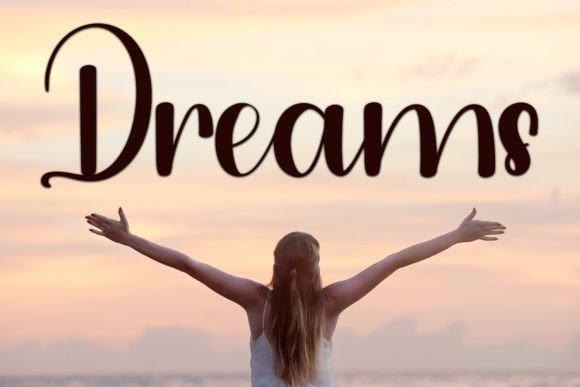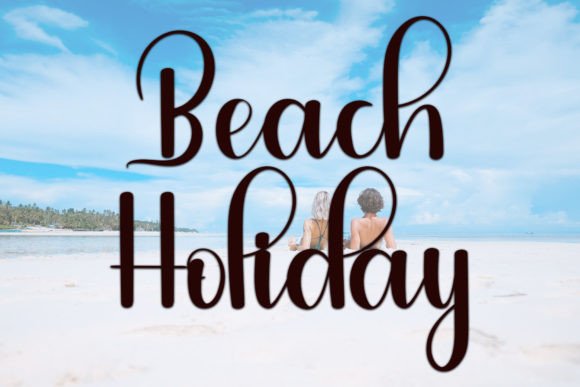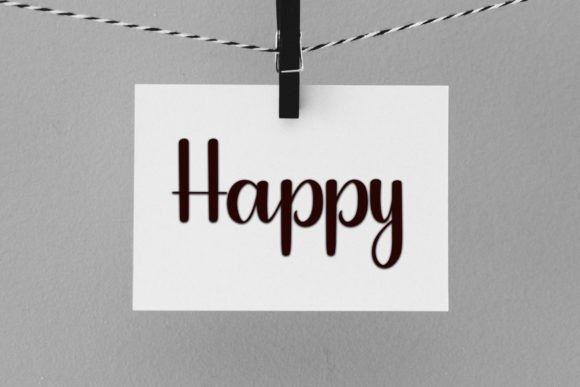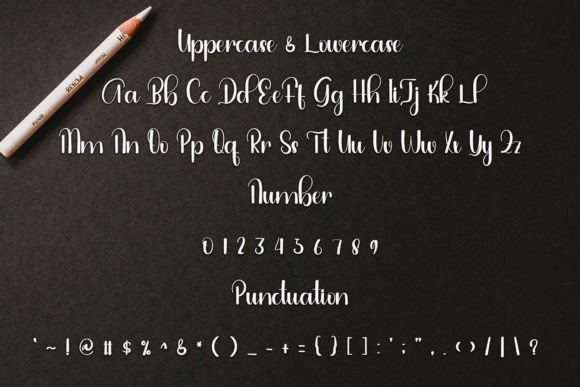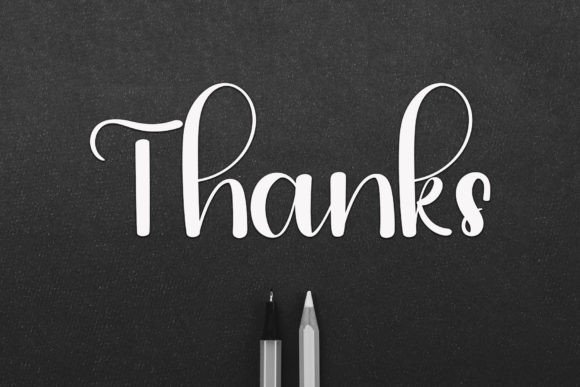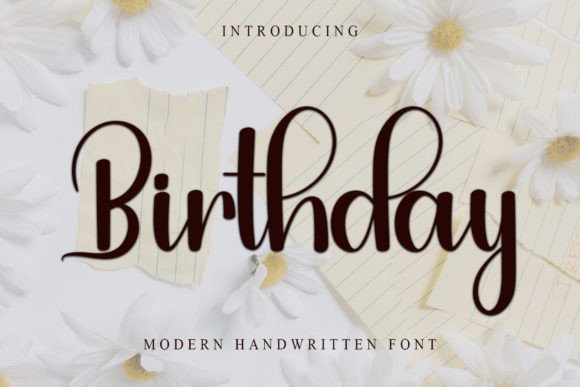
Introducing Birthday Font: The Perfect Elegant Touch for Your Designs
Are you looking for a font that adds a touch of elegance and sophistication to your designs? Look no further than Birthday Font, a beautiful handwritten font that is sure to capture your heart. With its incredibly distinct and timeless style, Birthday Font is perfect for designers and crafters who want to create spectacular designs that stand out from the crowd.
The Characteristics of Birthday Font
Birthday Font is a neat and beautiful handwritten font that is described by an elegant touch. Its unique style is characterized by:
- Elegant and Refined Lines: The lines in Birthday Font are smooth and refined, giving it a sophisticated and luxurious feel.
- Distinctive Letterforms: Each letter in Birthday Font has a unique and distinctive shape, making it easy to read and recognize.
- Timeless Style: The font has a classic and timeless style that never goes out of fashion, making it perfect for designs that need to stand the test of time.
Why Use Birthday Font?
There are many reasons why designers and crafters love Birthday Font. Here are just a few:
- Perfect for Special Occasions: Birthday Font is perfect for designs related to special occasions such as birthdays, anniversaries, and weddings.
- Versatile: The font can be used for a wide range of designs, from digital projects to print materials, and from elegant invitations to beautiful quotes.
- Easy to Read: Despite its elegant and refined lines, Birthday Font is easy to read, making it perfect for designs that require a high level of legibility.
How to Use Birthday Font
Using Birthday Font is easy and straightforward. Here are some tips to get you started:
- Pair it with Other Fonts: Birthday Font can be paired with other fonts to create a unique and interesting contrast.
- Experiment with Colors: The font looks great in a variety of colors, from classic black and white to bright and bold colors.
- Use it for Headings and Titles: Birthday Font is perfect for headings and titles, where its elegant and refined lines can really shine.
Here are some additional tips and tricks for designers and crafters who want to get the most out of Birthday Font:
- Use it for Digital Projects: Birthday Font can be used for a wide range of digital projects, from social media graphics to website headers.
- Create Beautiful Quotes: The font is perfect for creating beautiful quotes and typography art.
- Make it Your Own: Don’t be afraid to experiment and make Birthday Font your own by adjusting the size, color, and style to fit your design.
In conclusion, Birthday Font is a beautiful and elegant handwritten font that is perfect for designers and crafters who want to add a touch of sophistication and elegance to their designs. With its incredibly distinct and timeless style, Birthday Font is sure to capture your heart and inspire your creativity. So why wait? Download Birthday Font today and start creating spectacular designs that stand out from the crowd!